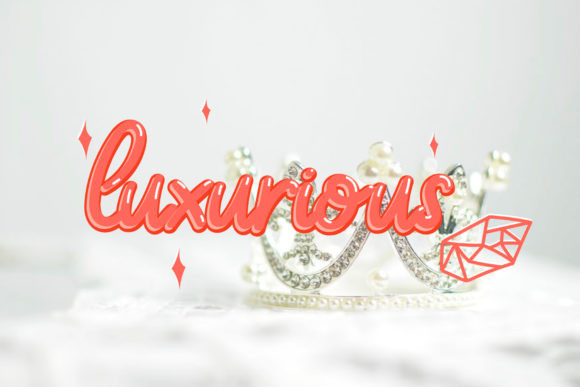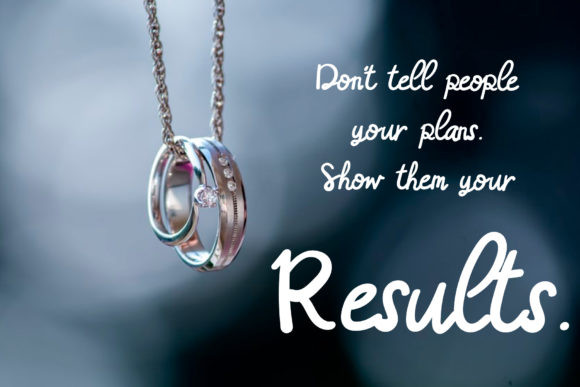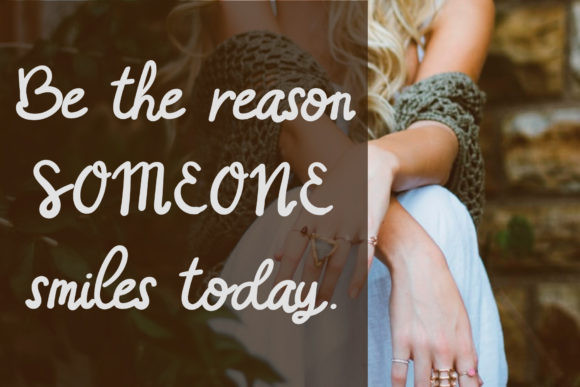
Luxurious Font
Luxurious results out of a stunning pairing of a marker and pencil that makes it look incredibly endearing and authentic. Use this gorgeous and unique handwritten font to bring any DIY project to life!